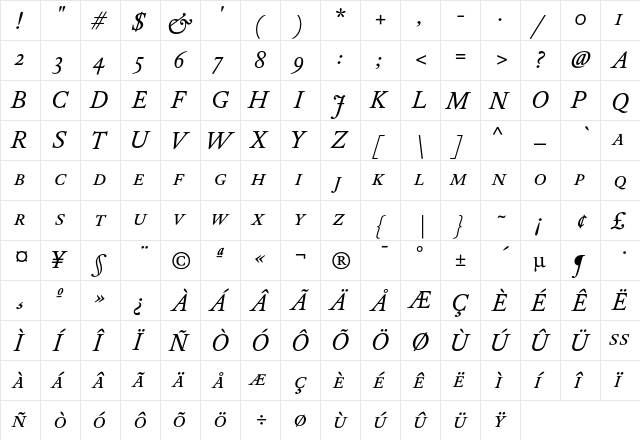
DTL Elzevir T Caps Book Italic
Design Context for DTL Elzevir Typeface
DTL Elzevir is a composed and adaptable typeface that performs quietly and consistently across a wide range of design contexts. The dynamic lean of this cut emphasises speed and emphasis in any layout.
Pro Tip: Use DTL Elzevir for emphasis, pull quotes, and subheadings where its slanted energy can add rhythm to the layout.